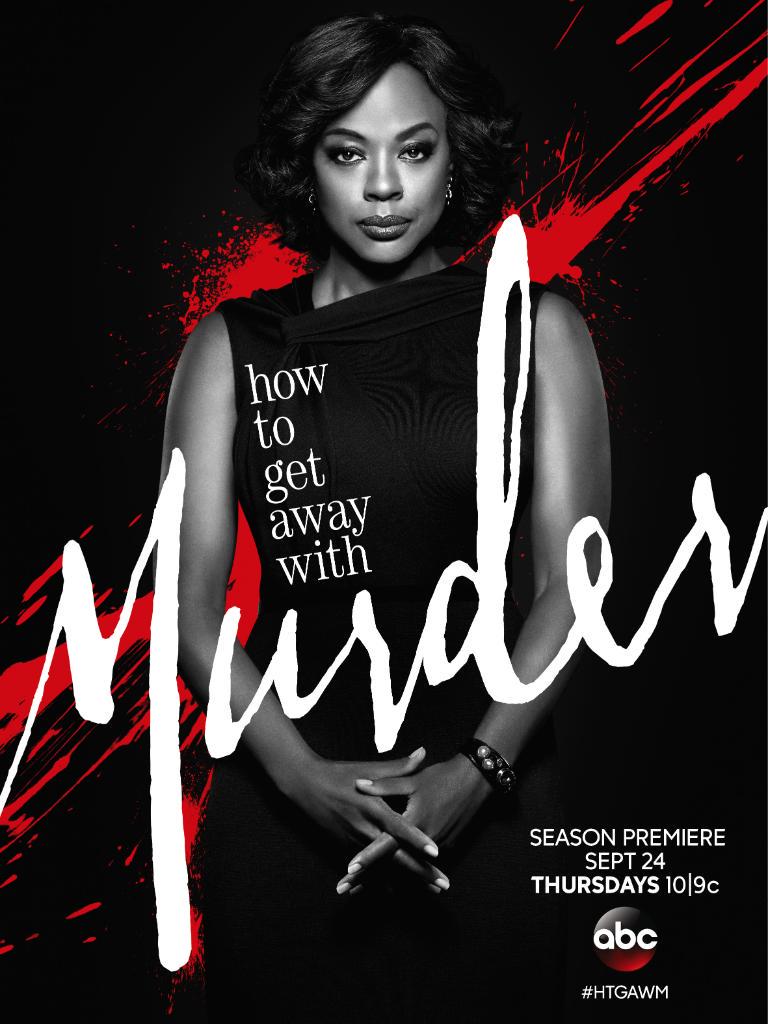
How to Get Away with Murder Font
DramaHow to Get Away with Murder is a legal thriller television series that follows a criminal defense attorney and law professor who gets embroiled in a murder plot with her students.
The title of the TV series "How to Get Away with Murder" has been given a unique look in the promotional poster using two different font styles. The serif part is designed in ITC Century Light Condensed by Tony Stan while the script part ''MURDER'' is set in Saissant, a modern hand-drawn font created by Jessica McCarty.